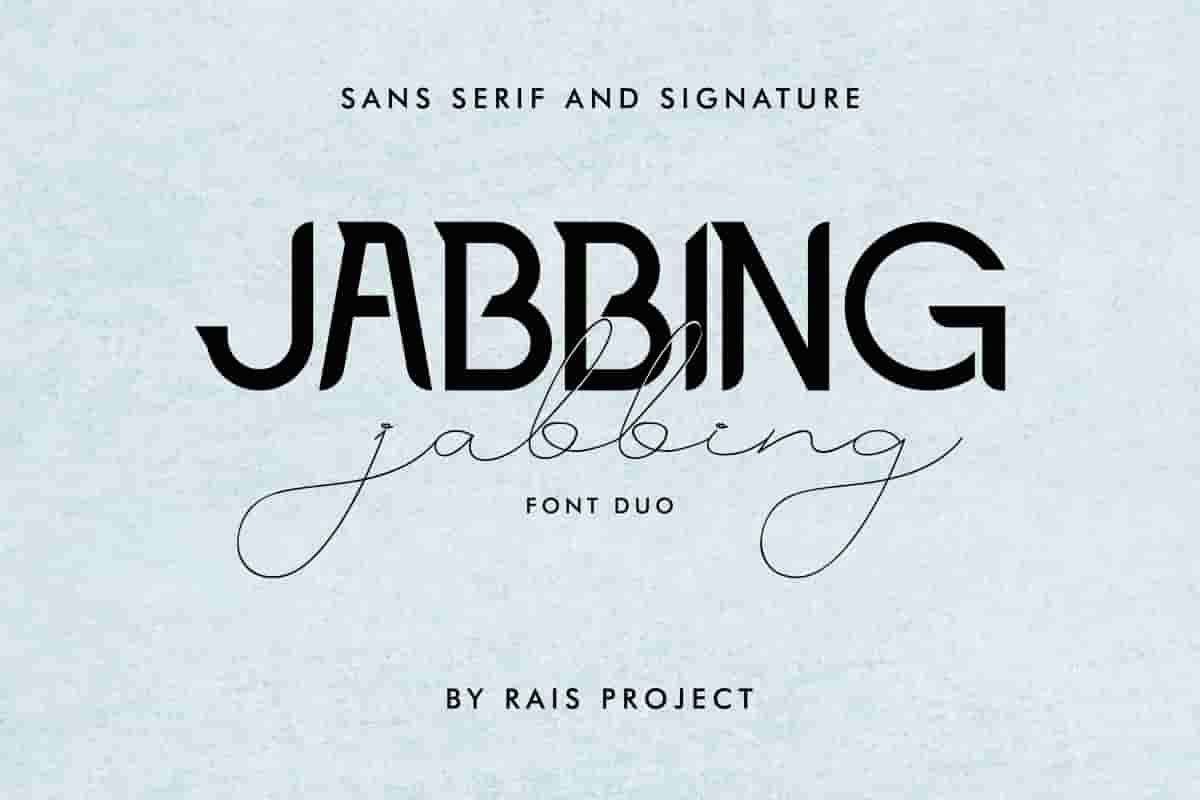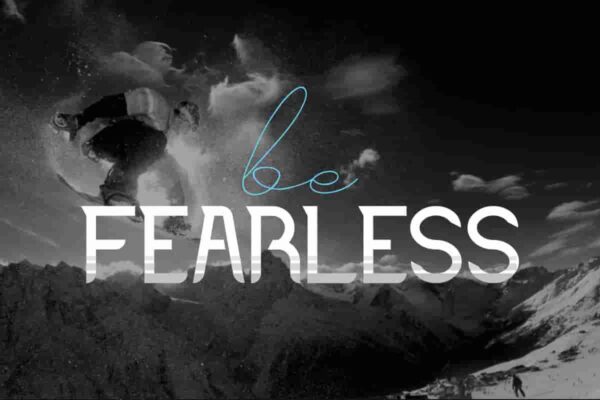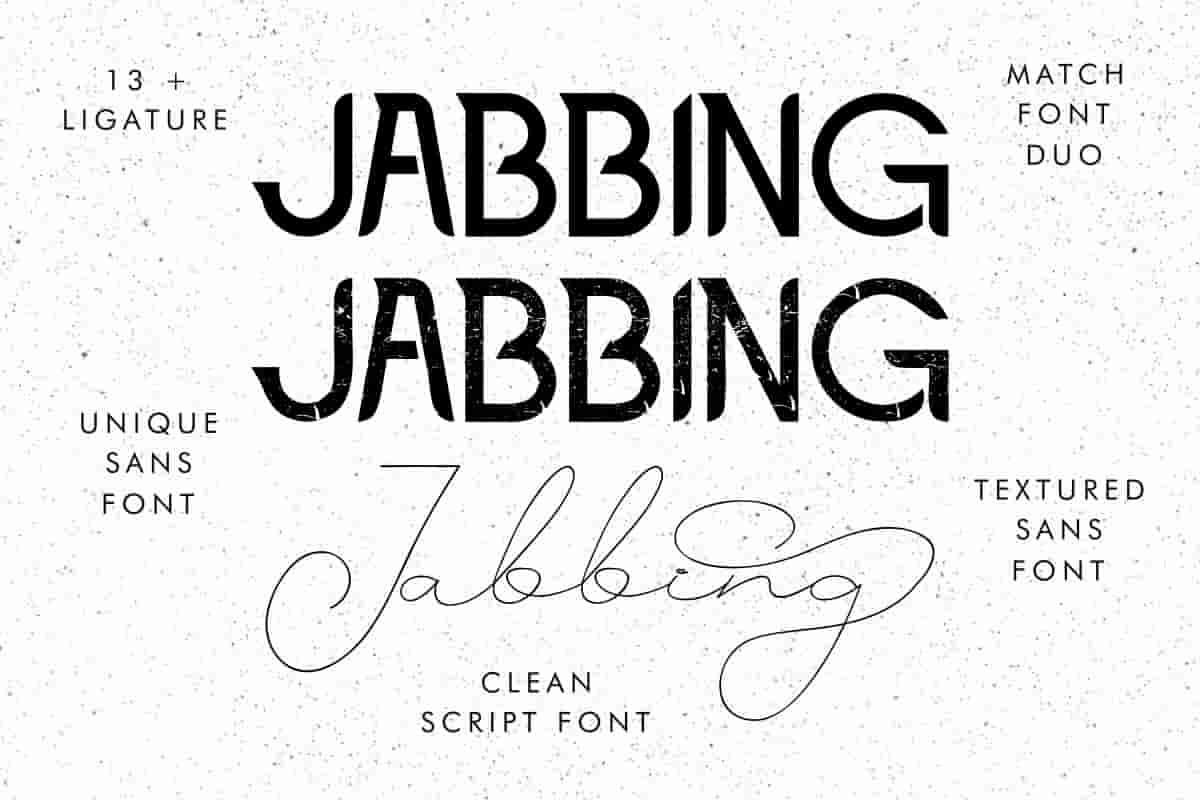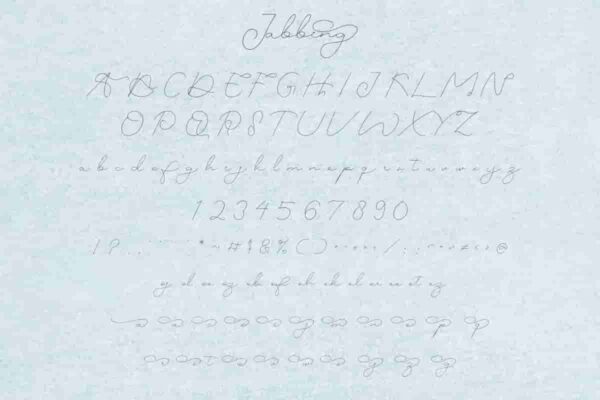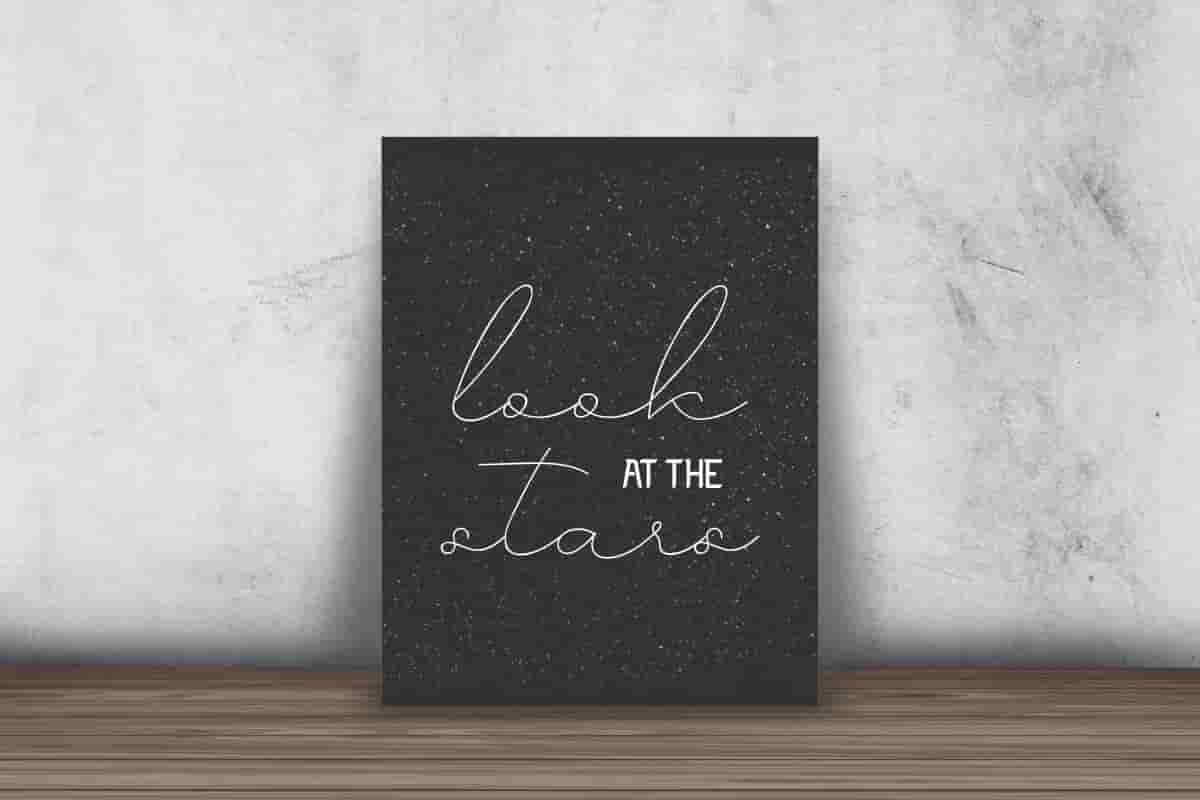
Jabbing Fonts
Jabbing Font is a font family with three styles : Serif display reguler, textured and Signature Script, designed by Rais Project. It has stunning characters that will make your project stands out
Jabbing Font is a font family with three styles : Serif display reguler, textured and Signature Script, designed by Rais Project. Jabbing Font is our next font on the market that has stunning characters that will make your project stands out. You can see the demo font below. You can also input any word you want so you can see what it will look like :
Jabbing Font is remotely created in Indonesia. The font will match any your projects : branding, promotion, events, branding, advertising, magazine, signage, invitation, stationery, social media posts, label, or and any projects that need unique strong style. The theme/industries of this font is Wedding, photography, Technology, wedding, restaurant, Magazine, Music, retail etc
Jabbing Script Font includes full set of gorgeous uppercase and lowercase letters, numerals, a large range of punctuation and ligatures. On the otherhand, the Jabbing Serif Font has only awesome UPPERCASE characters. Remember, Jabbing Fonts have three different styles : Serif Display, Textured/sketched and Signature Script